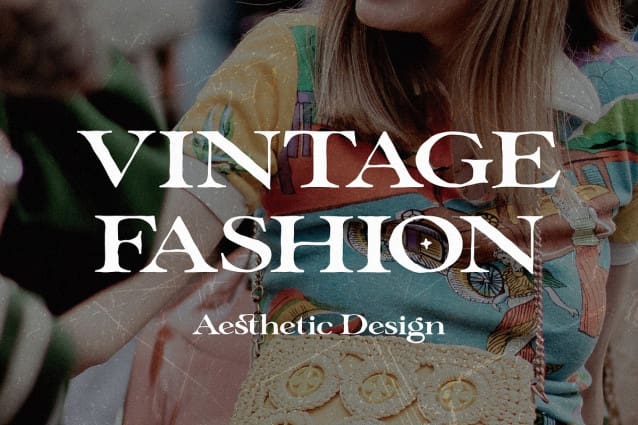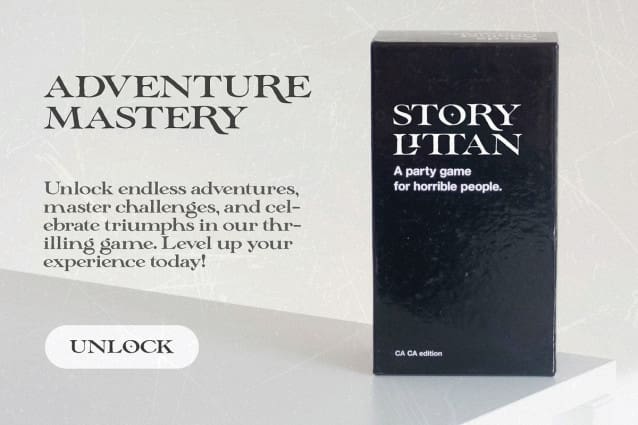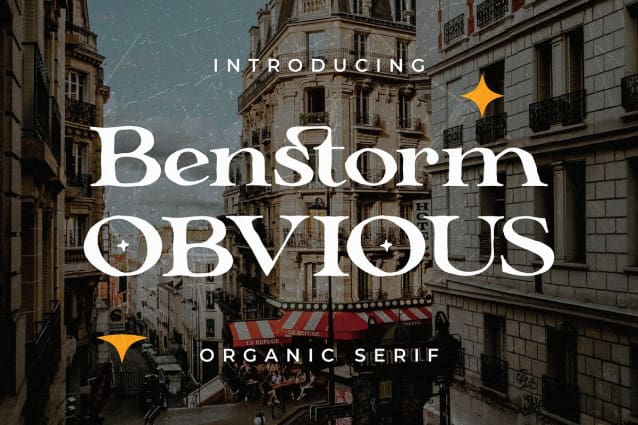
Benstorm Obvious Font
Benstorm Obvious Font, a captivating and sophisticated organic serif font that adds a touch of elegance to your projects. Crafted with precision and care, this font is designed to make your text stand out with a unique and natural flair.
Uppercase and Lowercase: BenstormObvious offers a harmonious blend of uppercase and lowercase characters, providing versatility in your design work.
Ligatures: Elevate your typography with seamlessly connected characters, enhancing the overall flow and aesthetics of your text.
Alternatives: Explore various stylistic alternatives to customize the look and feel of your text. Benstorm Obvious gives you the creative freedom to experiment and achieve the perfect visual balance.
Multilingual Support: Reach a global audience effortlessly with Benstorm Obvious extensive multilingual support. Communicate your message effectively in different languages.